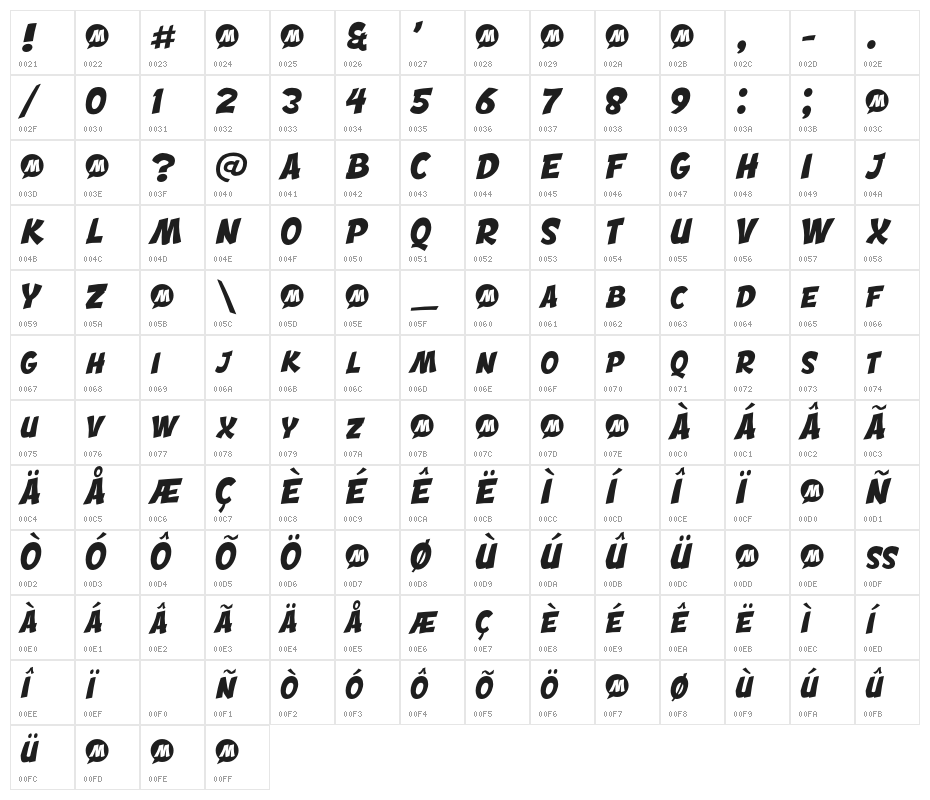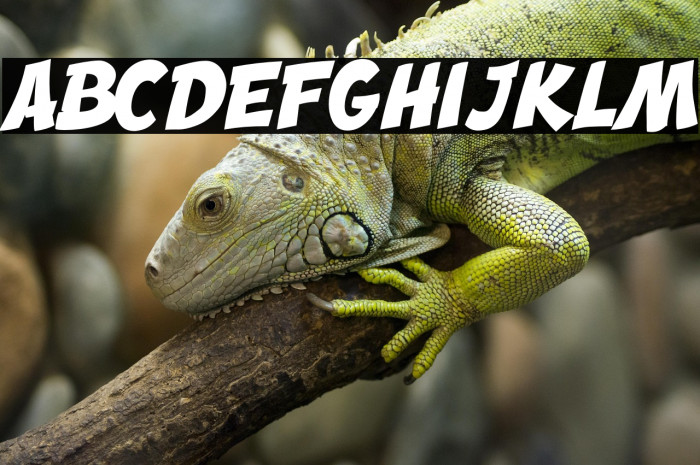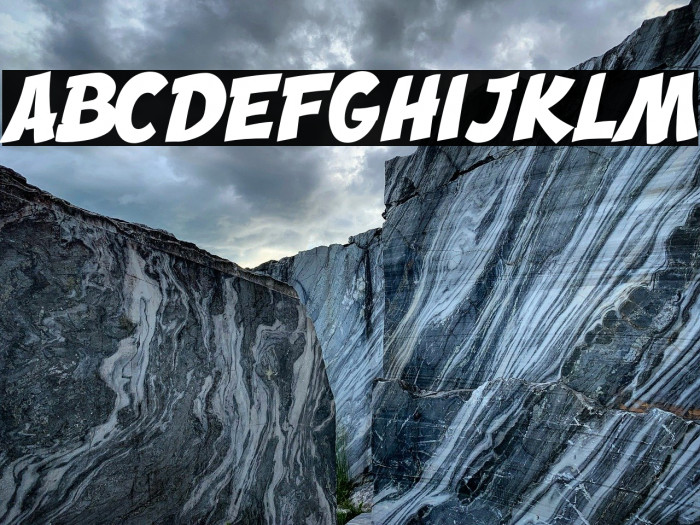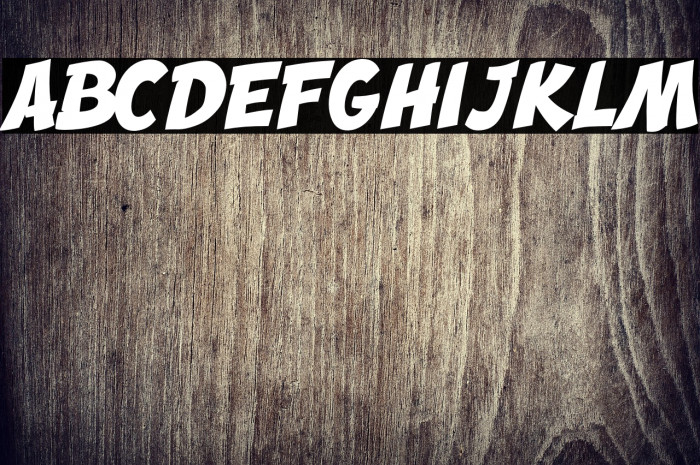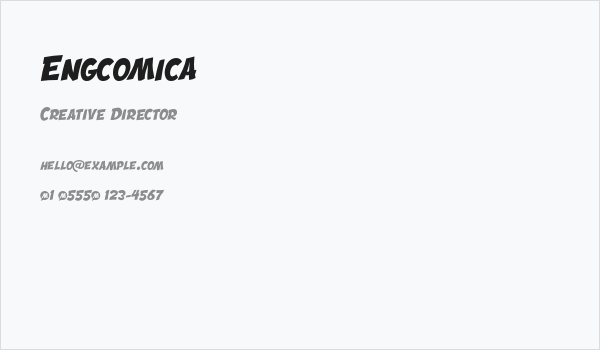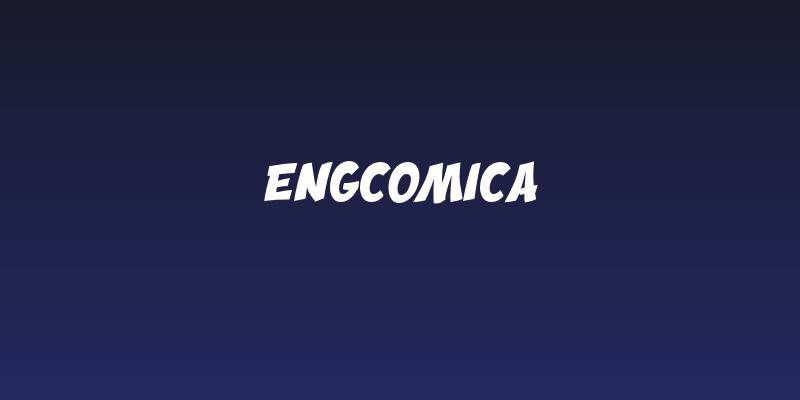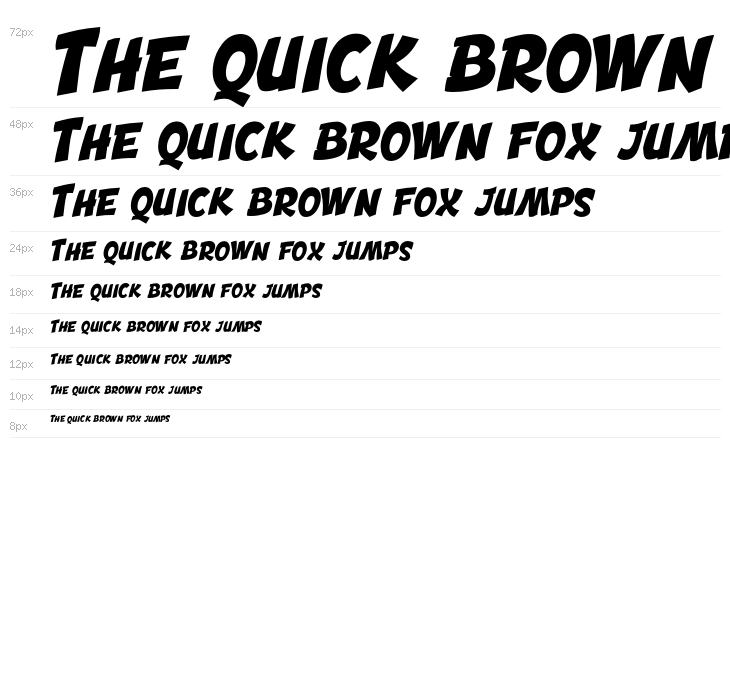
Engcomica Font
Engcomica Description
This bold and dynamic font features a playful, comic-inspired style with exaggerated curves and a slightly slanted orientation. The characters are thick and robust, giving a sense of energy and movement. The uppercase and lowercase letters maintain a consistent style, with rounded edges and a slight tilt that adds to the font's lively appearance. The numbers and special characters follow the same design principles, ensuring a cohesive look across all elements. This font is ideal for projects that require a fun and engaging visual impact, such as comic books, children's books, or playful branding.
| Overall Style | Playful, Comic |
| Proposed Projects | Comic books, children's books, playful branding, posters, and merchandise. |